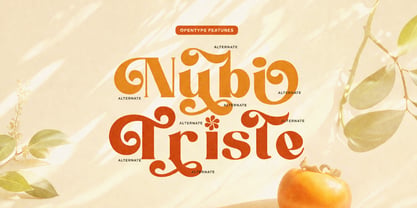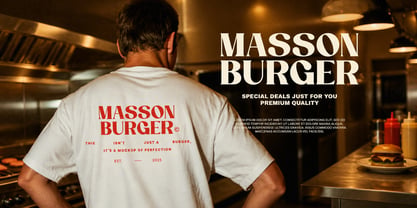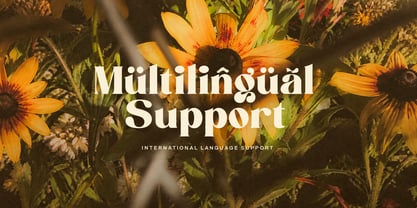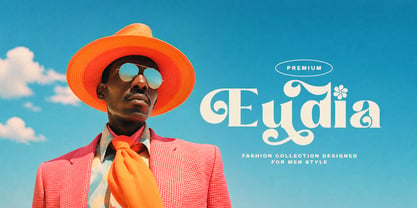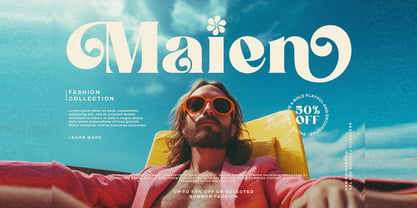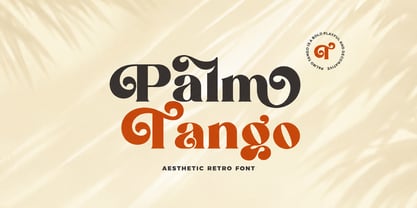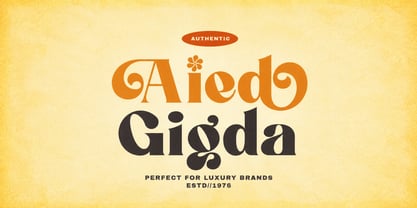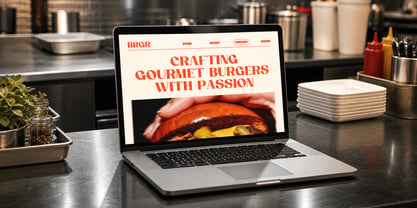
Palm Tango
The Palm Tango Font Family was designed by Faizul Muna and published by Unitype Studio. Palm Tango contains 1 styles. More about this family
Palm Tango is a retro serif font that captures the warmth and joy of sunny days and festive seasons. With bold, organic letterforms and playful curves, it brings a nostalgic yet modern twist to any design. The font radiates energy and optimism, making it ideal for projects that aim to evoke a light-hearted, cheerful spirit.
Designed with inspiration from summer, spring, and autumn aesthetics, Palm Tango effortlessly complements seasonal themes like Easter, Thanksgiving, and Christmas. Its retro charm and expressive flair make it perfect for seasonal posters, craft projects, and craft designs that demand personality and vibrance.
Palm Tango's versatility extends beyond seasonal work. It shines in wedding invitations, birthday cards, cricut crafts, embroidery patterns, and creative lettering compositions. The font adds a touch of bold sophistication while maintaining a relaxed, artistic feel—perfect for print and digital mediums alike.
The font’s unique serif style balances playful curves with structured elegance, offering strong visual impact without sacrificing readability. Its character-rich design ensures standout appeal in logos, branding, and social media visuals that need both charm and clarity.
Elevate your creative projects with Palm Tango and let its retro-inspired energy bring color, warmth, and personality to your next design.